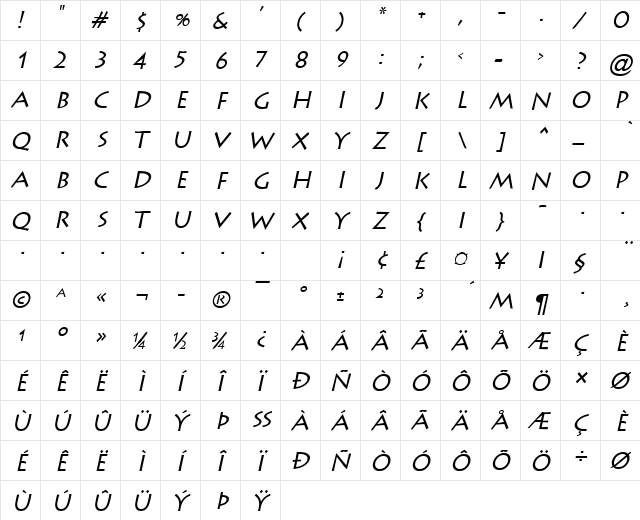
Liste Italic
Design Context for Liste Typeface
Liste takes a measured approach to typography — its balanced proportions and neutral character make it a reliable workhorse for both digital and print work. The slanted form adds forward momentum and visual energy.